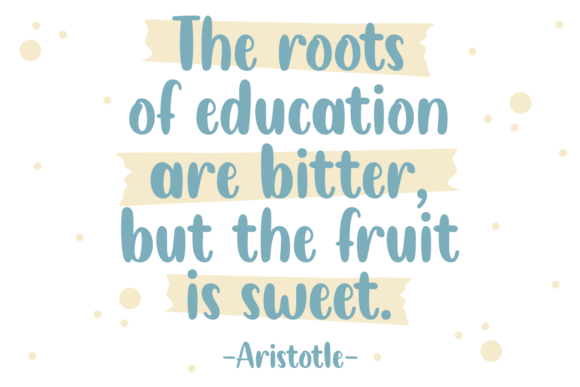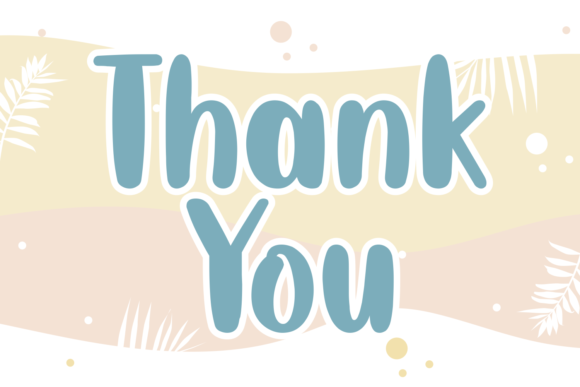
Haidani Font: The Sweet and Friendly Handwritten Font for Your Creative Projects
Are you a designer or crafter looking for a font that can add a personal touch to your creative projects? Look no further than Haidani Font! This sweet and friendly handwritten font is perfect for a wide range of designs, from invitations and greeting cards to branding and packaging. In this article, we’ll take a closer look at Haidani Font and explore its unique features, uses, and benefits.
What is Haidani Font?
Haidani Font is a beautiful, handwritten font that exudes warmth and friendliness. Its natural and unique style makes it incredibly versatile, allowing you to use it for a variety of design projects. Whether you’re creating a rustic wedding invitation or a modern brand logo, Haidani Font is sure to add a touch of personality and whimsy.
Unique Features of Haidani Font
So, what sets Haidani Font apart from other fonts? Here are a few of its unique features:
- Handwritten style: Haidani Font has a distinctly handwritten feel, making it perfect for designs that require a personal touch.
- Natural and unique: The font’s natural and unique style ensures that your designs will stand out from the crowd.
- Versatile: Haidani Font can be used for a wide range of design projects, from invitations and greeting cards to branding and packaging.
Uses of Haidani Font
So, what can you use Haidani Font for? The possibilities are endless! Here are a few ideas to get you started:
- Invitations and greeting cards: Add a personal touch to your invitations and greeting cards with Haidani Font.
- Branding and packaging: Use Haidani Font to create unique and eye-catching brand logos and packaging designs.
- Signs and posters: Haidani Font is perfect for creating eye-catching signs and posters for events, sales, and promotions.
- Digital designs: Use Haidani Font in your digital designs, such as social media graphics, blog posts, and email newsletters.
Benefits of Using Haidani Font
So, why should you choose Haidani Font for your design projects? Here are a few benefits:
- Adds a personal touch: Haidani Font adds a personal touch to your designs, making them more relatable and engaging.
- Unique and eye-catching: The font’s unique style ensures that your designs will stand out from the crowd.
- Easy to read: Haidani Font is easy to read, making it perfect for designs that require a clear and concise message.
- Versatile: Haidani Font can be used for a wide range of design projects, making it a great addition to your font library.
Tips for Using Haidani Font
Here are a few tips for using Haidani Font in your design projects:
- Pair with other fonts: Pair Haidani Font with other fonts to create a unique and eye-catching design.
- Use for headlines and body text: Use Haidani Font for headlines and body text to create a cohesive and visually appealing design.
In conclusion, Haidani Font is a sweet and friendly handwritten font that’s perfect for designers and crafters looking to add a personal touch to their creative projects. Its natural and unique style makes it incredibly versatile, allowing you to use it for a wide range of designs. With its ease of use, unique features, and benefits, Haidani Font is a great addition to any font library.